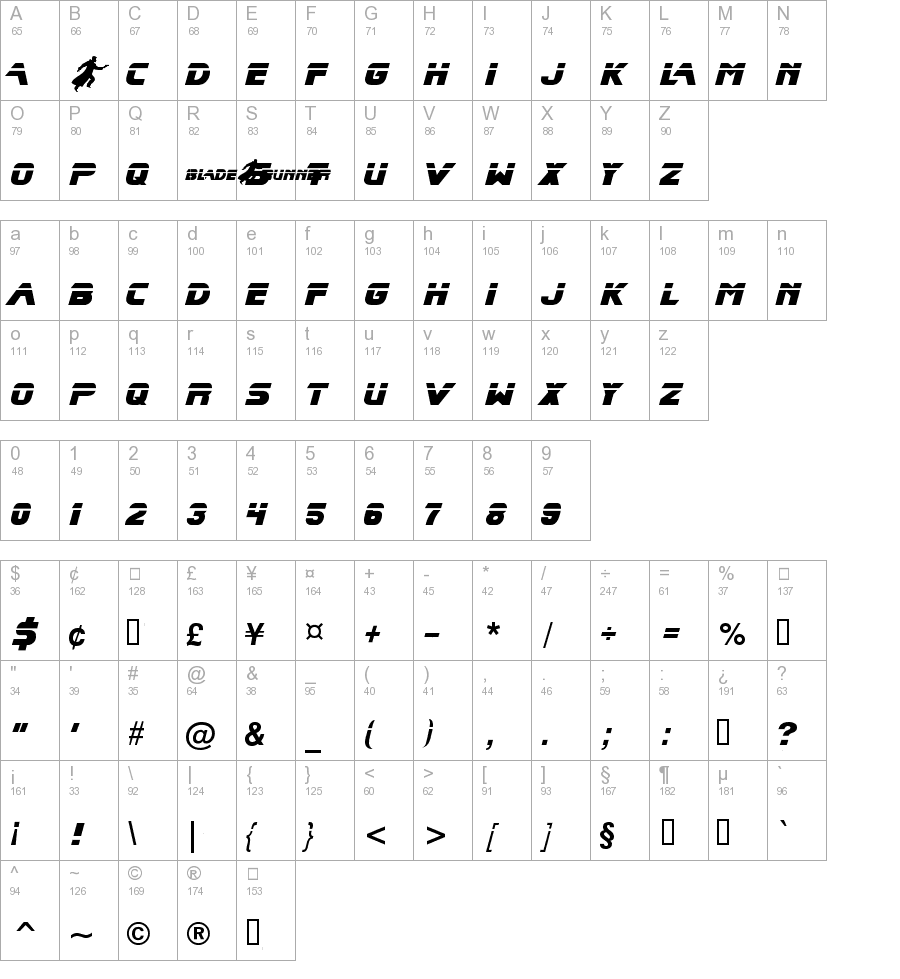
A Guide To The Best Blade Runner Fonts For 2023
Blade Runner is an iconic movie that has been dazzling audiences since its release in 1982. It's a visually stunning sci-fi film that has inspired countless people and made an indelible mark in pop culture. As such, it's no surprise that many people want to bring some of the movie's style into their own projects. One way to do that is to use the same fonts from the movie in your own designs.
What Are Blade Runner Fonts?
Blade Runner fonts are the typefaces used in the movie. They were specially commissioned by the movie's production company, and they were created by noted type designers such as John Berkey and Tom Carnase. The fonts were used in the movie's title sequences and were used extensively throughout the movie. Some of the fonts used were even based on classic typefaces from the past.
Why Use Blade Runner Fonts?
Using Blade Runner fonts can be an effective way to bring some of the movie's style into your own designs. The fonts have a distinctive look that can be hard to replicate with other typefaces. They also have a classic feel that can give your projects a timeless quality. Plus, using the same fonts from the movie can help you create a cohesive and authentic design.
What Are Some of the Best Blade Runner Fonts?
One of the most iconic fonts from the movie is the Berkey font. It was designed by John Berkey and was used in the movie's title sequences. It has a distinctive look that has become synonymous with the movie. Another popular font is the Tom Carnase font. This font was used in the movie's opening credits and can be found in many popular design projects today.
Using Blade Runner fonts can be a great way to bring some of the movie's style into your own designs. The fonts have a distinctive look that can be hard to replicate with other typefaces. They also have a classic feel that can give your projects a timeless quality. Plus, using the same fonts from the movie can help you create a cohesive and authentic design. So if you're looking to capture some of the movie's style in your own designs, then using Blade Runner fonts is the way to go.